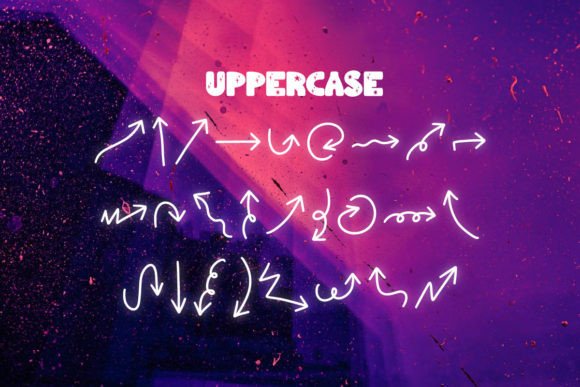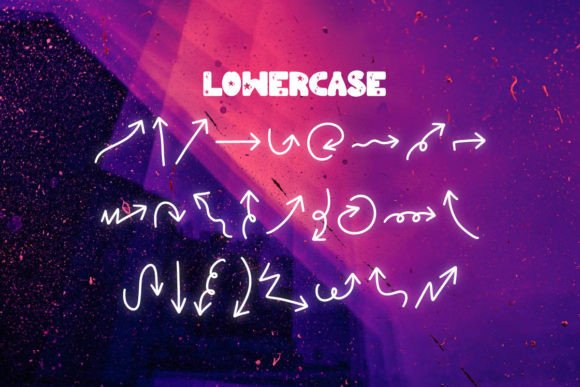
Introduction to Line Arrows Font
As a designer, there’s nothing quite like the thrill of a creative breakthrough. You’re working on a project, and suddenly, the perfect symbol or icon pops into your head. For many of us, this moment is often the result of finding the right design resource – and today, we’re excited to share one of our favorites: the Line Arrows Font.
This unique font is more than just a pretty face; it’s a game-changer for any creative project that requires a touch of elegance and sophistication. With its hand-drawn arrows, the Line Arrows Font offers a level of sophistication that’s hard to find elsewhere, all while being incredibly easy to use. Plus, with a transparent background and high-quality design, you can rest assured that your project will look its absolute best.
Whether you’re a seasoned pro or just starting out, the Line Arrows Font is an invaluable resource that’s sure to take your designs to the next level. And the best part? It’s available for free download, making it the perfect addition to your design arsenal.
Key Features of Line Arrows Font
- High-quality design: Line Arrows Font offers a set of stylish and modern arrow icons perfect for creative projects.
- Transparent background: Each icon has a transparent background, making it easy to integrate into your design without any distractions.
- High-resolution icons: The font includes high-resolution icons, suitable for use in various sizes and resolutions, including print and web applications.
- Customizable: The font’s design allows for easy customization, enabling you to create unique arrow icons that fit your creative project’s style.
- Perfect for creative projects: Line Arrows Font is ideal for use in creative projects, such as infographics, presentations, and digital art.
Honest Review: Line Arrows Font
As a designer, I’m always on the lookout for high-quality design resources to enhance my creative projects. Recently, I came across the Line Arrows Font, and I’m excited to share my honest review.
Here’s what I like about it: ✨ The font is incredibly versatile, making it suitable for a wide range of design projects, from graphics to icons. The high-quality design ensures a crisp and clean look, even when used on a transparent background. The free download option is a major plus, making it easily accessible to designers of all levels.
Here are some key features:
- Extensive collection of arrow icons and shapes
- High-quality vector design for crisp and clear visuals
- Transparent background option for seamless integration
- Free download for designers of all levels
However, I do have a few concerns: ⚠️ The font library could be more extensive, and the lack of customization options might limit its use in some creative projects. Additionally, the font size and scaling can be a bit inconsistent at times.
Overall, the Line Arrows Font is a great addition to any designer’s toolkit. While it may have some limitations, its high-quality design and versatility make it a valuable resource for any creative project. I’d definitely recommend giving it a try, especially for those looking for a free and reliable design resource.
Line Arrows Font
The Line Arrows Font is commonly used in creative projects that require a unique and eye-catching text style. It’s perfect for headings, titles, and labels in infographics, posters, and brochures. You can also use it in digital products, such as e-books and presentations, to add a professional touch.
To get the most out of the Line Arrows Font, experiment with different font sizes, colors, and styles to find the perfect combination for your design. You can also use it in conjunction with other design elements, such as icons and graphics, to create a cohesive and visually appealing design. With a free download available, you can use this font in all your design projects, big or small.
Are the Line Arrows Font glyphs scalable?
Yes, the Line Arrows Font glyphs are designed to be scalable, ensuring that they remain crisp and clear at various font sizes. This makes the font an excellent choice for designers who need to create high-quality designs that require precise control over typography and graphics.